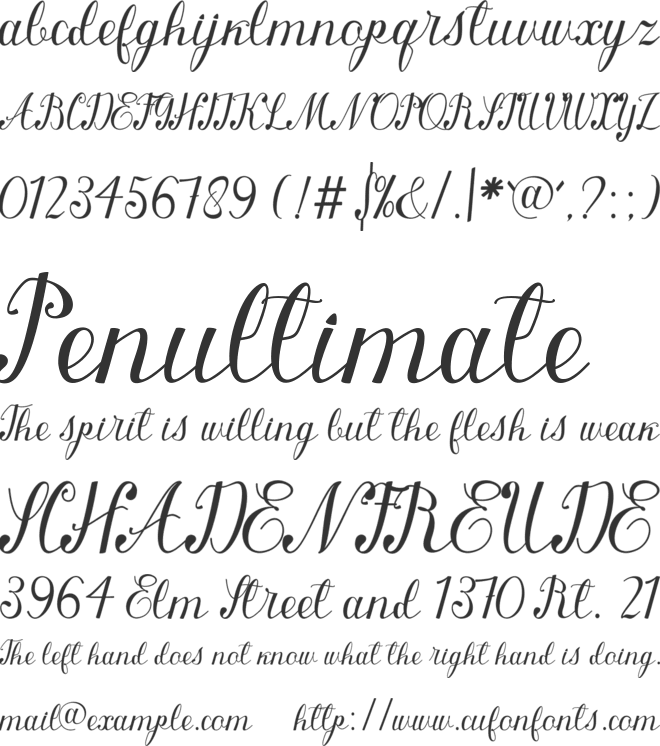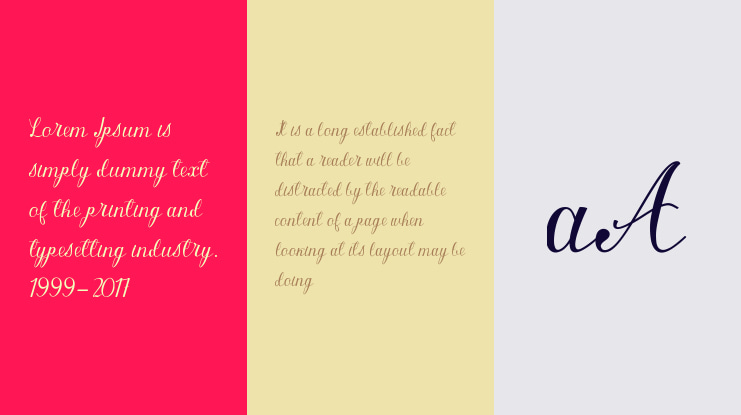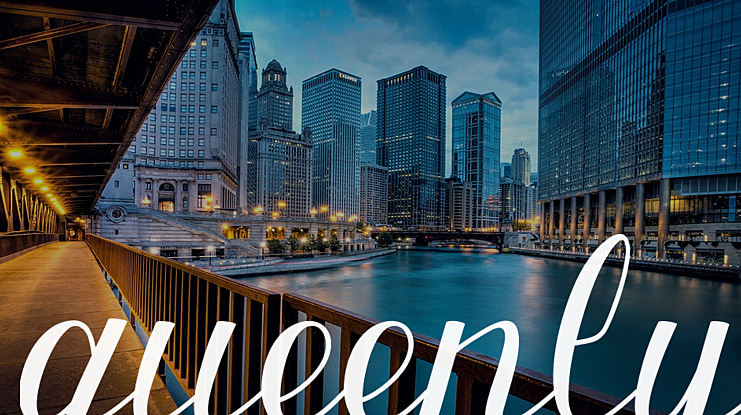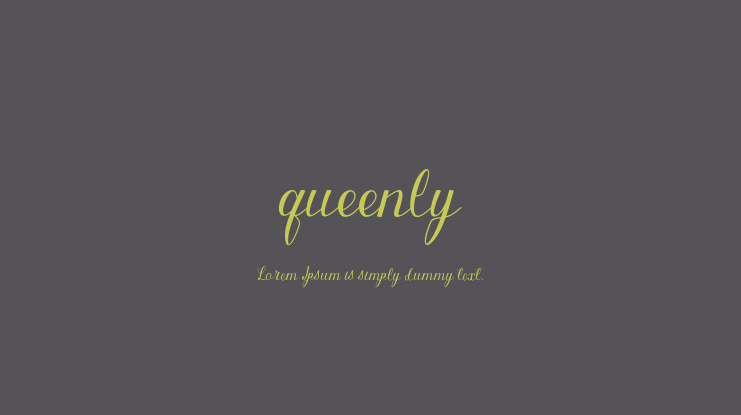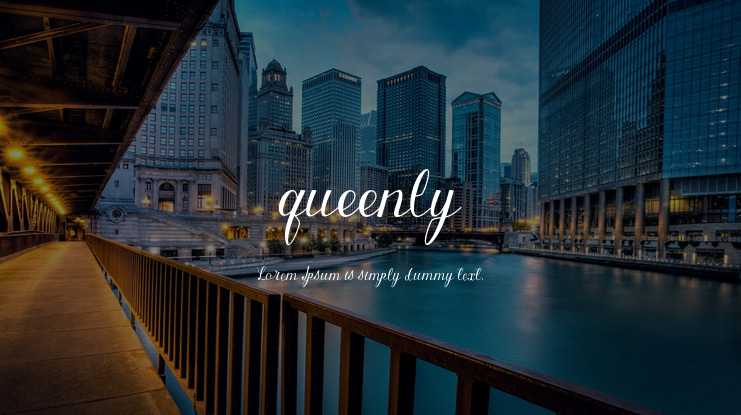
queenly Font
queenly is a font that made the hand by having the character up and down like a dancer.queenly has a very unique style of calligraphy, it is very suitable for use in the work of modern design.
The Features of this fonts is:
* Standart ligatures * Stylistic Alternates< * PUA Unicode (Private Use Areas)